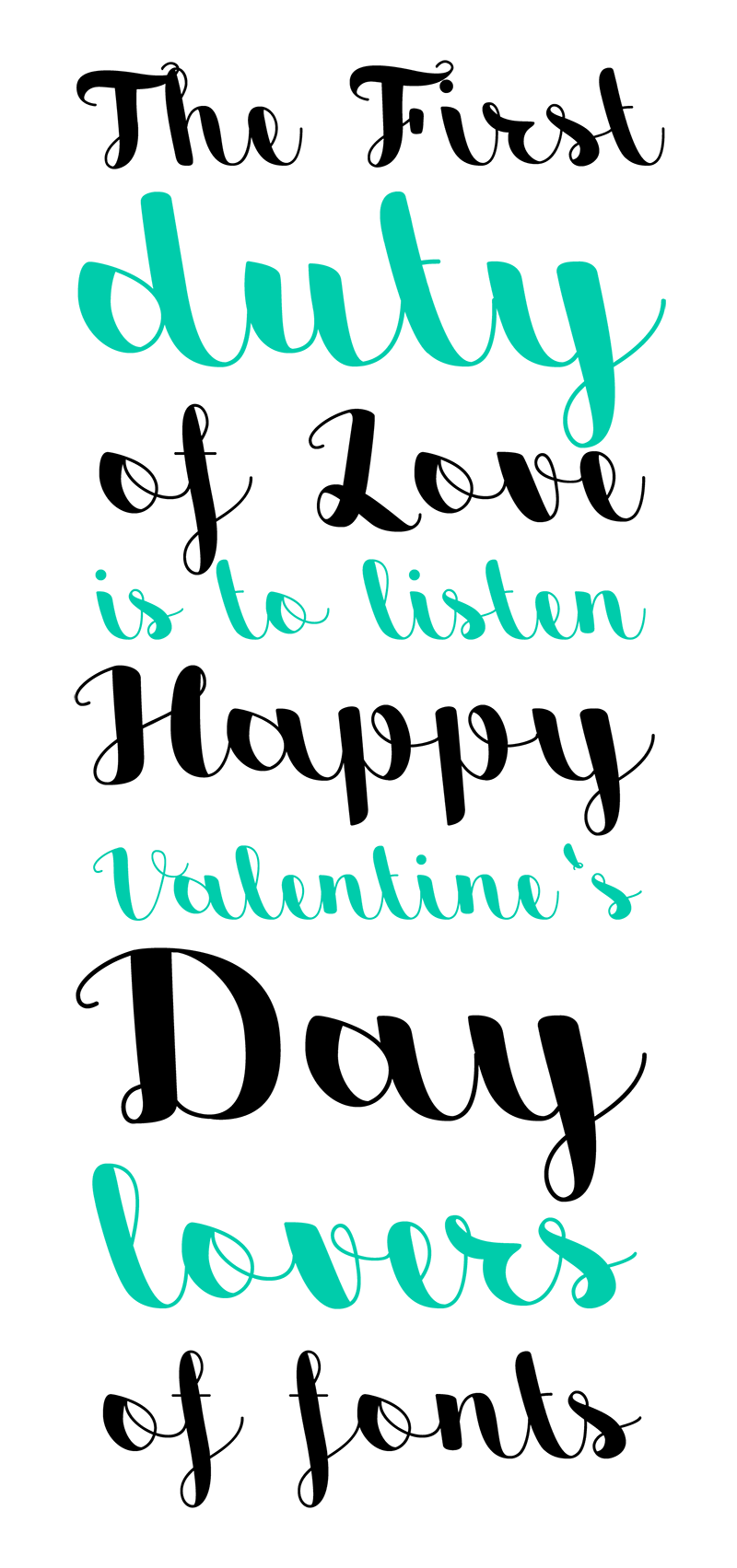
Sweetheart Script is a Brush Handwriting Display Typeface created for your sweetest words! Its calligraphic look made it ideal for handmade feel, the shapes are soft and the lines leads the eyes through the words. Sweetheart Script is suitable for love letters, greetings cards, advertisings, poster and more. Sweetheart Script Family: Sweetheart Script Regular FULL version available here > https://www.monofonts.com/products/sweetheart-script/ For commercial use, you can purchase the font at: https://www.monofonts.com/products/sweetheart-script/ For more info on our license: http://www.monofonts.com/license If you like our works please like us on Facebook and Behance: https://www.facebook.com/monofonts https://www.behance.net/monofonts |